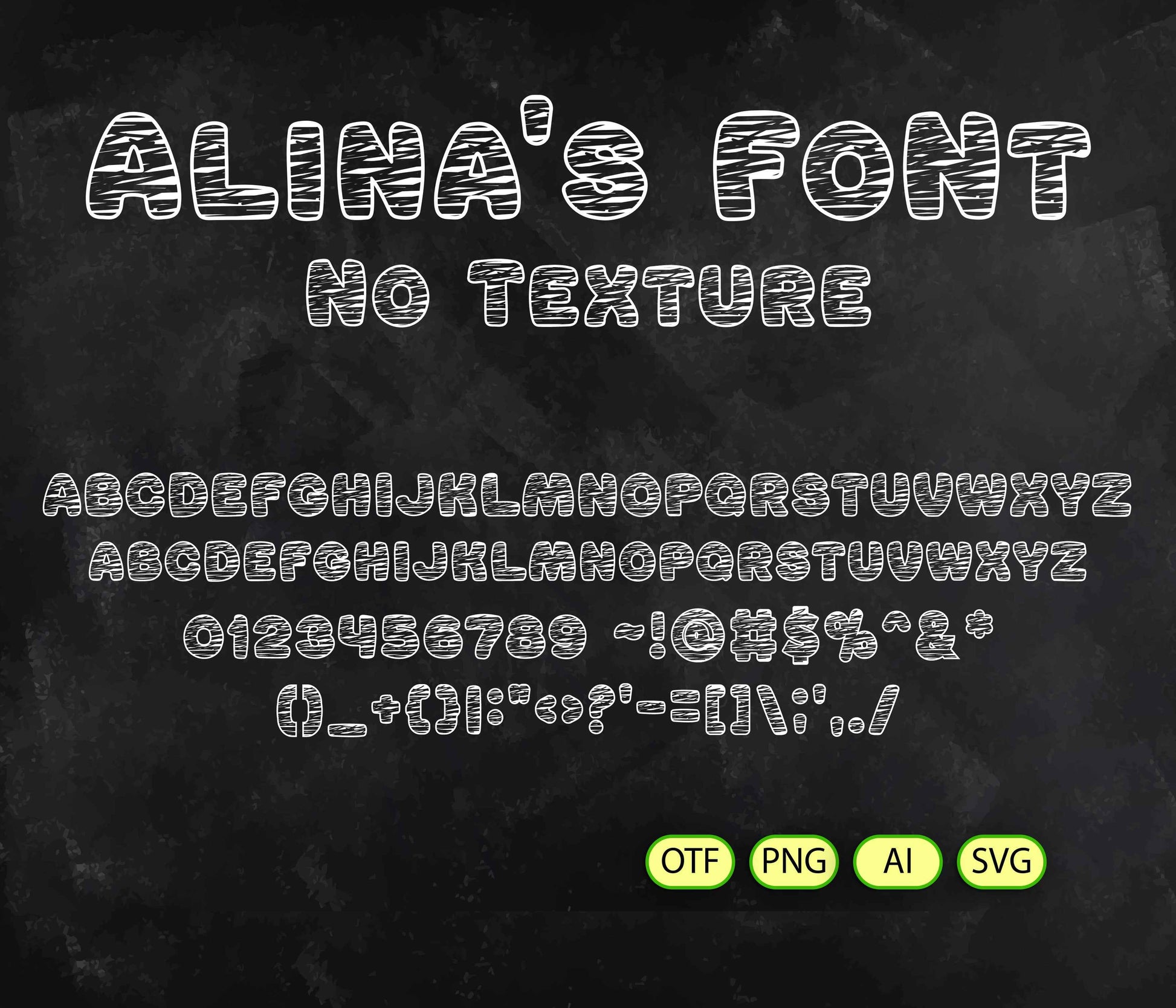
Chalk Expression Font
Step into the world of rustic charm with our Chalk Expression font, capturing the essence of handwritten artistry and nostalgic classroom vibes. Perfect for educators, café owners, event planners, and digital creators, this textured font brings authentic chalkboard character to your projects. Create menu boards, educational materials, or cozy content with the warm, handcrafted feel of traditional chalk writing.
Our Chalk Expression font features authentic, dusty lines and handcrafted characters reflecting the genuine feel of chalk writing. Ideal for:
1. Café Design: Create charming menu boards, daily specials, and rustic signage for food establishments.
2. Educational Materials: Perfect for classroom resources, learning materials, and school-themed designs.
3. Event Planning: Design cozy wedding signs, party decorations, and rustic event materials.
4. Digital Content: Enhance social media posts, blog headers, and websites with authentic chalkboard typography.
5. Home Décor: Ideal for kitchen prints, inspirational quotes, and farmhouse-style decorative elements.
Our Chalk Expression font includes both textured and non-textured variants, ensuring compatibility with all software, including popular design platforms. This feature allows easy incorporation into designs for users of all skill levels.
Many seek an online font generator to mimic the look of the Chalk Expression Font. Steer clear! No generator can match the quality of our font, which comes in two versions: a textured chalk-style font and a simple version, perfect for cutting machines.
Our font pays tribute to traditional handwriting arts, empowering your designs with its authentic and nostalgic spirit. Whether crafting educational materials, designing café menus, or adding a rustic touch to special projects, this font communicates the warm essence of chalk lettering. Ready to bring some handcrafted charm to your creations? This font is your key to authentic, impactful design.